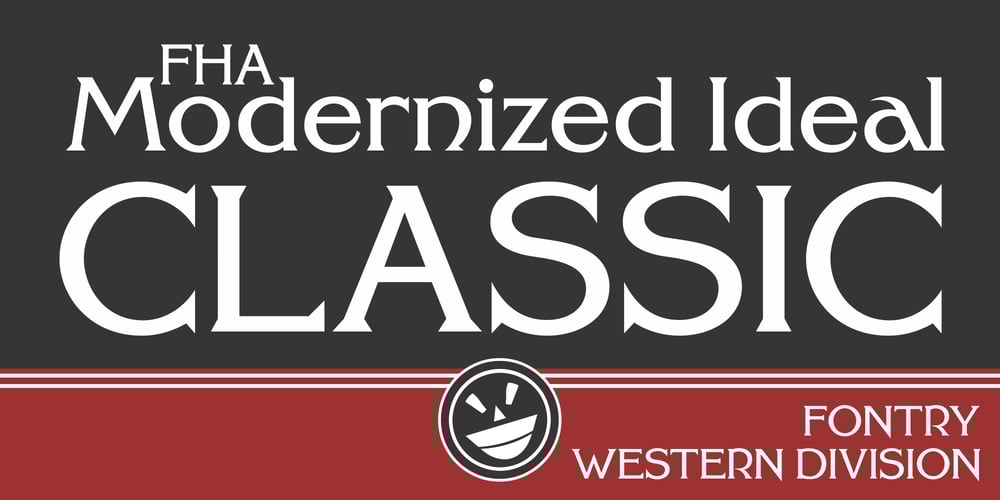
FHA Modernized Ideal Classic Font Family was designed by Michael Gene Adkins, James L. Stirling and published by Fontry West. FHA Modernized Ideal Classic contains 1 styles and family package options. Frank H. Atkinson’s book Atkinson Sign Painting was published in 1909. For decades, this book served as the manual for sign painters – a handbook for hand lettering. Atkinson’s book described techniques, layouts and several sample alphabets. Modernized Ideal Classic was inspired by one of these demonstration alphabets. Although Classic has its beginnings in art deco, it is very comfortable in any period or style of design. It is most appropriate in headline and display text, poster copy and signs. We’ve included some nice stylistic alternates and an interesting array of ligatures.